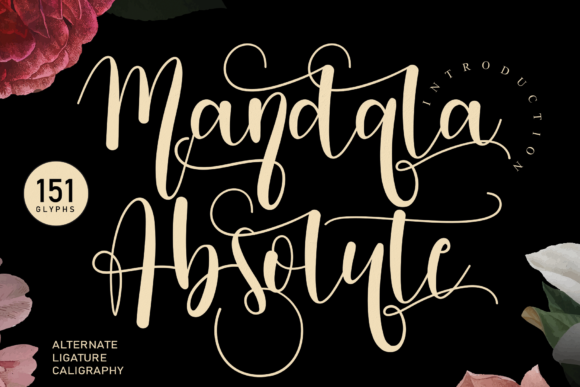
Unleash your creativity with Mandala Absolute, the exquisite script font that exudes elegance and sophistication. Dive into a world of captivating curves, delicate strokes, and mesmerizing details that will transform your designs into breathtaking masterpieces.
Mandala Absolute is not just a font; it's an invitation to embark on a journey of self-expression. With its PUA-encoded characters, you'll have effortless access to a treasure trove of glyphs and ligatures, empowering you to weave enchanting narratives and leave a lasting impression on your audience.
Imagine the possibilities: heartfelt letters that dance across the page, conveying emotions with every stroke; stunning invitations that evoke a sense of wonder and anticipation; eye-catching logos that radiate personality and professionalism; and captivating social media posts that spark engagement and ignite conversation.
Mandala Absolute is the ultimate font for expressing your individuality and making a bold statement. Its versatility knows no bounds, seamlessly adapting to a myriad of design projects, from elegant wedding invitations to playful social media graphics. Its intricate details will add a touch of magic to any project, capturing the attention of your audience and leaving them spellbound.
So, embrace the allure of Mandala Absolute and unlock the gateway to a world of creative possibilities. Let your imagination soar, and experience the joy of crafting designs that resonate with your audience, leaving an indelible mark on their hearts and minds.